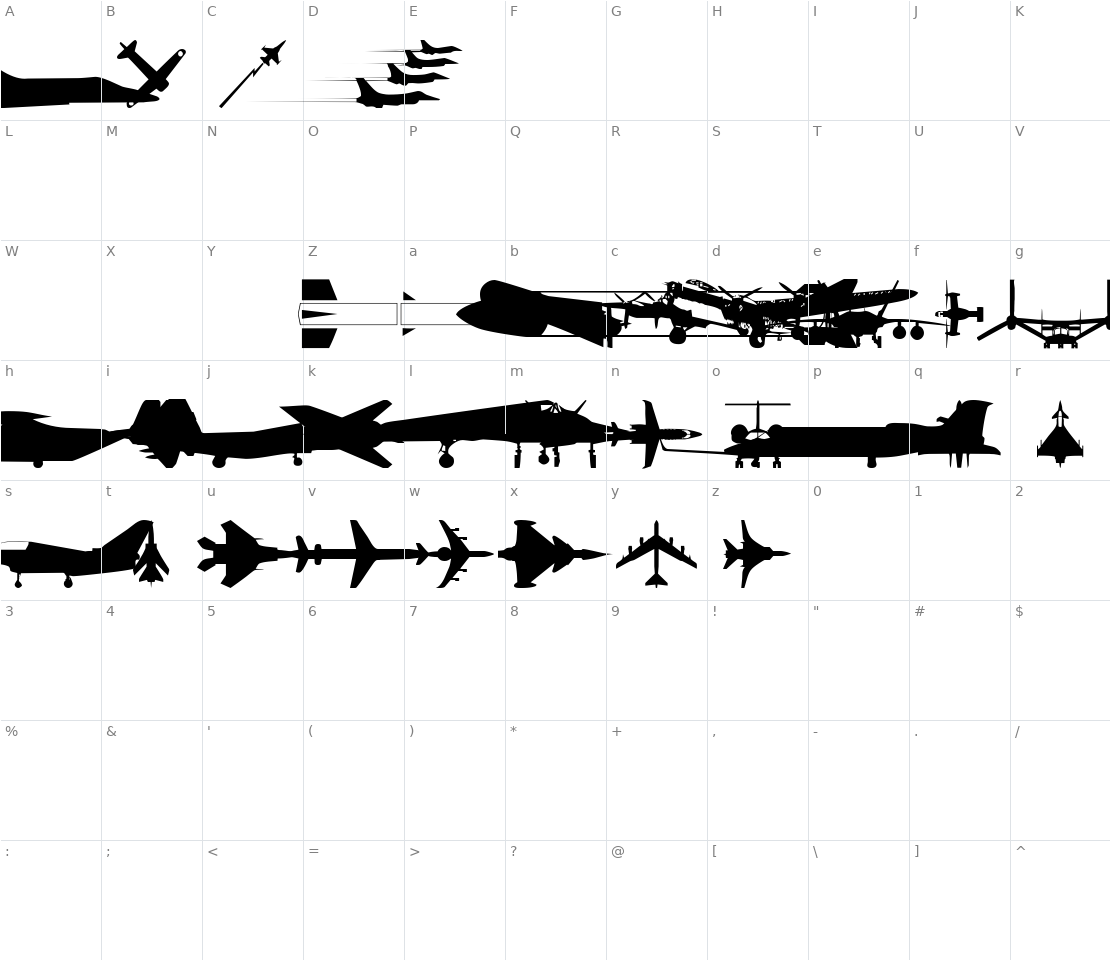
WM Military 1
by WillyMac
WM Military 1 is a dingbat font from WillyMac featuring silhouettes of military hardware: aircraft, missiles, weapons, and other war-related imagery. Each character maps to a different icon, making it a quick resource for military-themed graphics, infographics, or decorative elements in defense and history-related projects. Purely illustrative, not a text face.